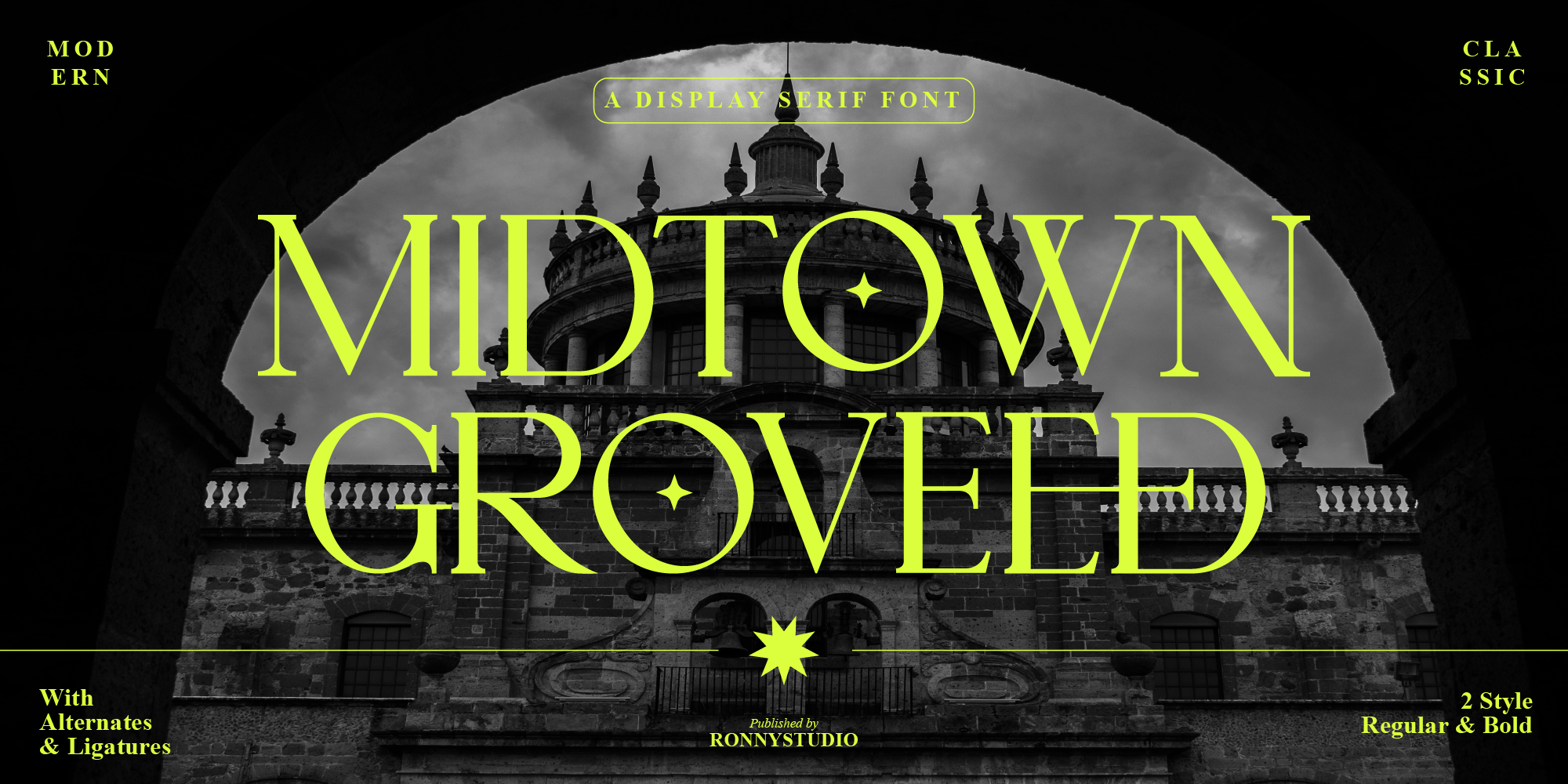
Midtown Groveed Font is perfect for urban development branding, city planning presentations, metropolitan lifestyle magazines, real estate marketing materials, downtown business districts, urban architecture firms, municipal government communications, and contemporary city identity systems.
Midtown Groveed Font is exciting because it captures the dynamic energy and sophisticated progression of modern urban development through its distinctive character design that embodies the harmonious balance between urban growth and community values. Its metropolitan styling and progressive appeal make it the perfect choice for brands that want to communicate urban sophistication, community development, and the transformative power of thoughtful city planning.
Midtown Groveed Font family includes multiple urban variations: Midtown Groveed Light, Midtown Groveed Regular, Midtown Groveed Medium, Midtown Groveed Bold, Midtown Groveed Condensed, and Midtown Groveed Extended, along with urban decorative elements and city planning symbols, providing designers with comprehensive tools for creating authentic metropolitan and urban development-themed brand experiences.
When exploring urban typography solutions, Midtown Groveed Font Free Download emerges as the premier choice for designers working on city development and metropolitan projects that require genuine urban sophistication and progressive appeal. This remarkable typeface embodies the essence of modern city planning while offering the technical precision that contemporary municipal organizations and urban development firms require. The font's metropolitan character and progressive authenticity create immediate connections with audiences who appreciate thoughtful urban development and community growth.
Urban planning professionals consistently choose Midtown Groveed Font for projects requiring authentic metropolitan sophistication and powerful development appeal. Its expertly crafted letterforms feature urban influences that work exceptionally well in both large-scale city signage and intimate community development presentations. The font's ability to convey progress and urban vision while maintaining strong brand recognition makes it invaluable for comprehensive identity systems in the municipal services, urban development, and metropolitan planning sectors.
Whether you're developing city government identities, creating urban development marketing materials, or designing metropolitan planning presentations, Midtown Groveed Font delivers the authentic urban character and progressive appeal that resonates with audiences who embrace modern city living and community development. Its metropolitan significance and sophisticated design ensure your projects communicate forward-thinking urban values while maintaining contemporary professional standards that attract modern citizens and urban development stakeholders.